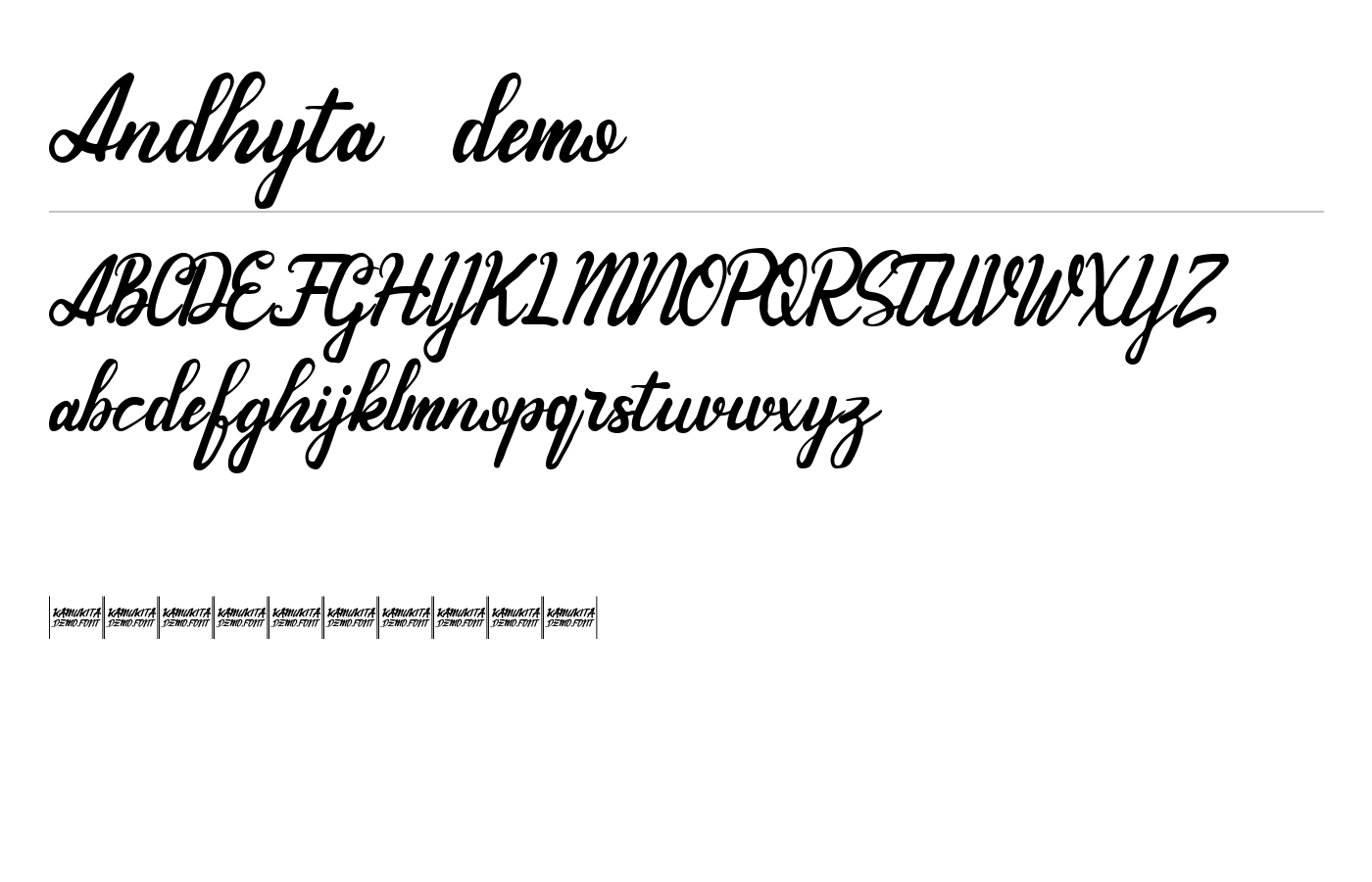
Andhyta (demo) is an elegant script font with smooth, flowing strokes and a medium weight that gives it a graceful, handcrafted feel. Its slightly condensed letterforms and consistent stroke contrast create a refined and polished look, making it perfect for invitations, branding, and stylish headlines. This font brings a sense of sophistication and personal touch, ideal for designs that want to convey elegance and warmth.
Andhyta (demo) Font
About Andhyta (demo) Font